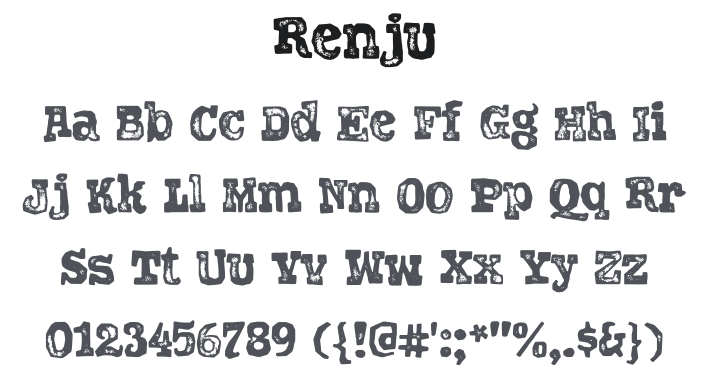
Renju Font
About Renju
Renju is a rambunctious, textured slab-serif display typeface with a convincing rubber stamp effect — bold, chunky letterforms appear dry-inked and hand-pounded, as if pressed through a worn stamp with uneven pressure. Smart OpenType ligatures automatically swap common letter pairs to enhance the authentic, irregular stamp-pad quality. Perfect for craft branding, artisan packaging, retro signage, Japanese-inspired designs, and any headline needing satisfyingly tactile, stamped personality.